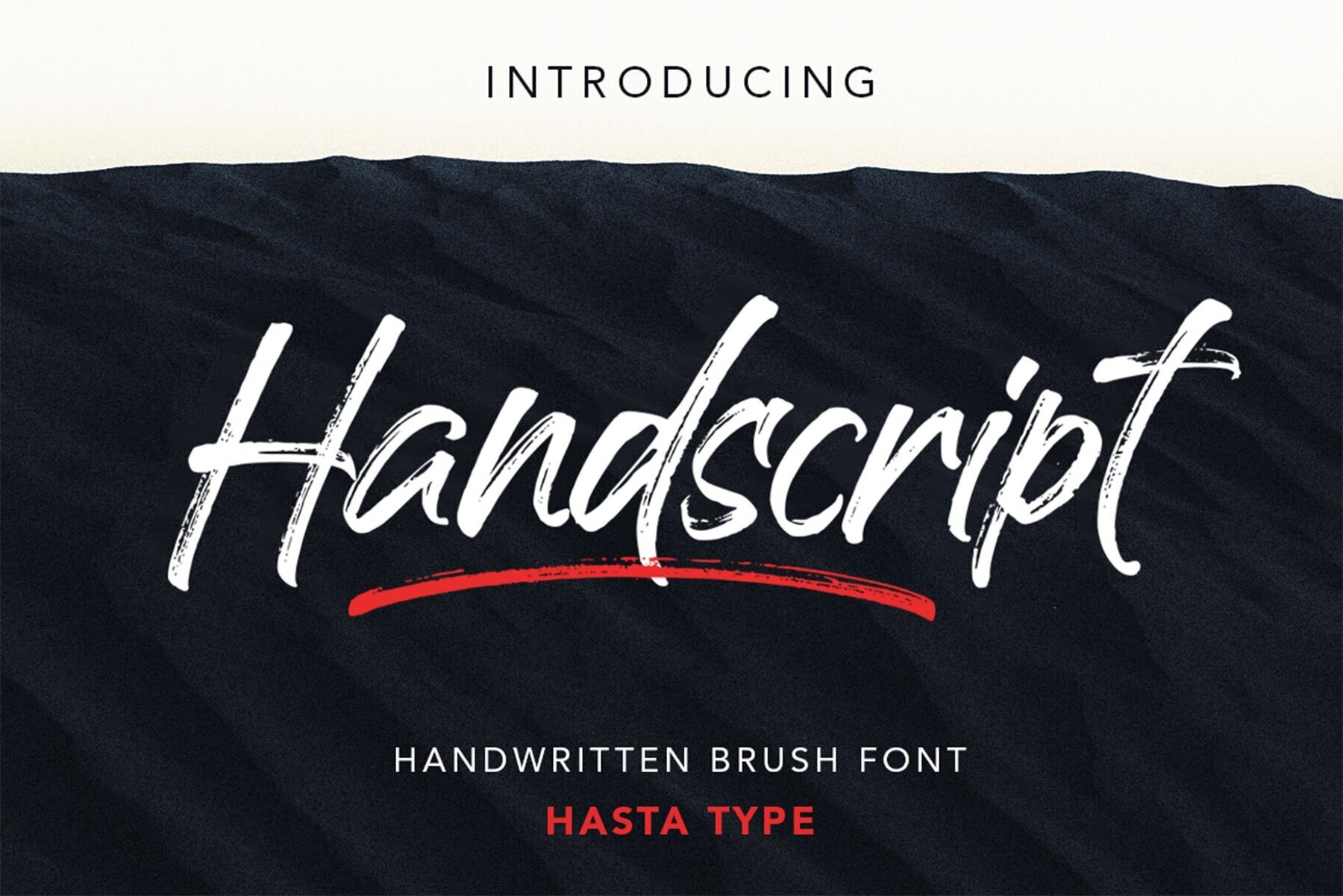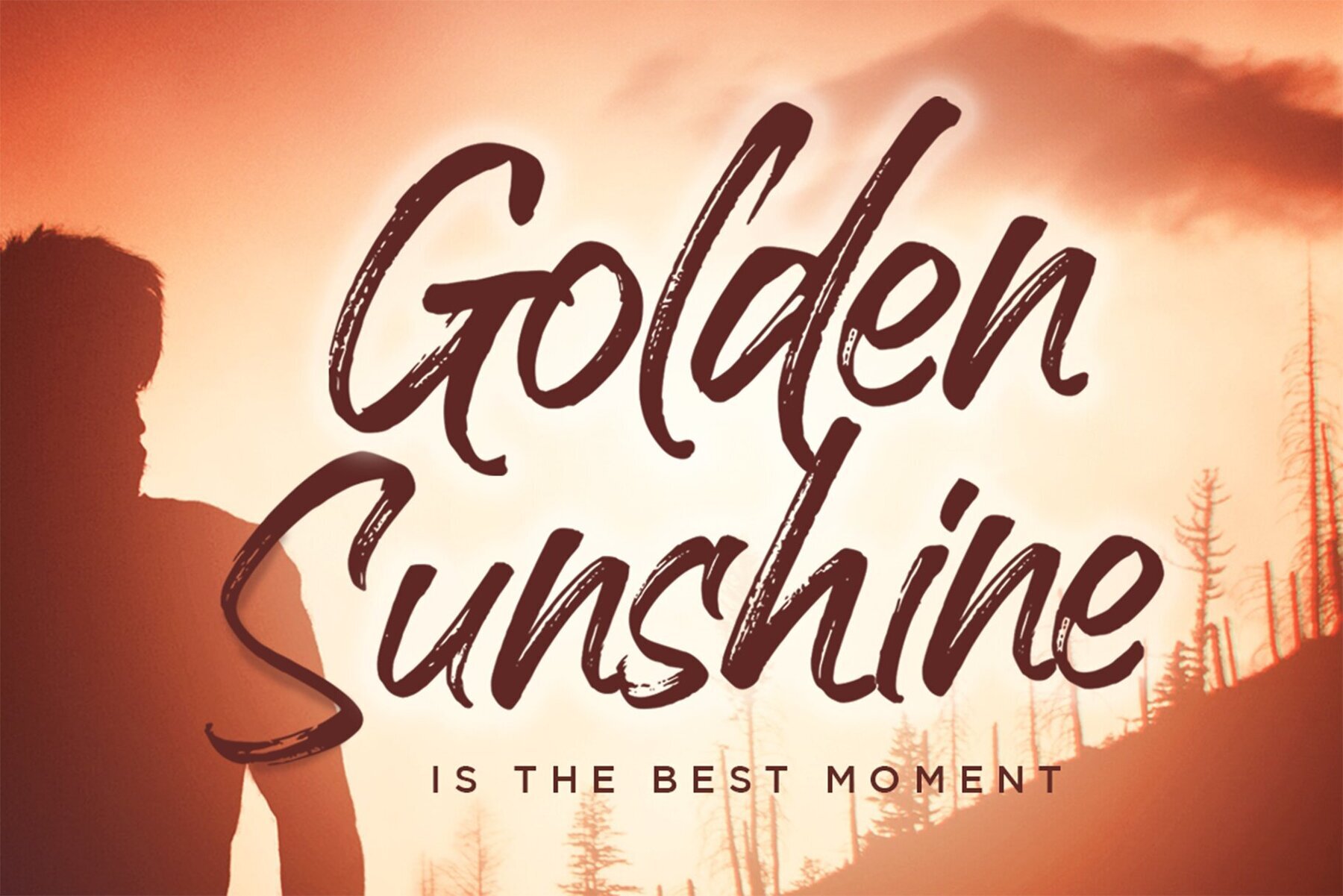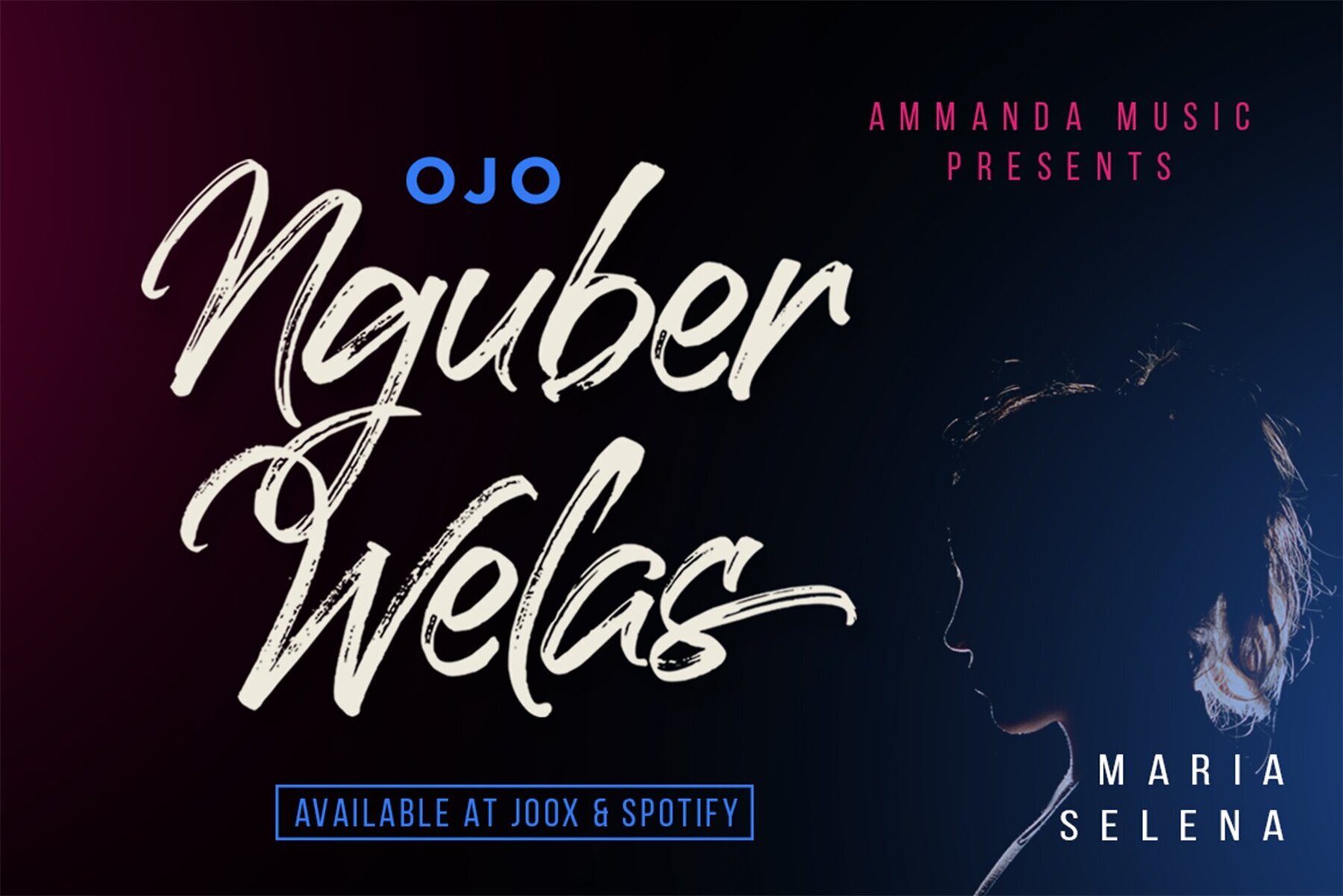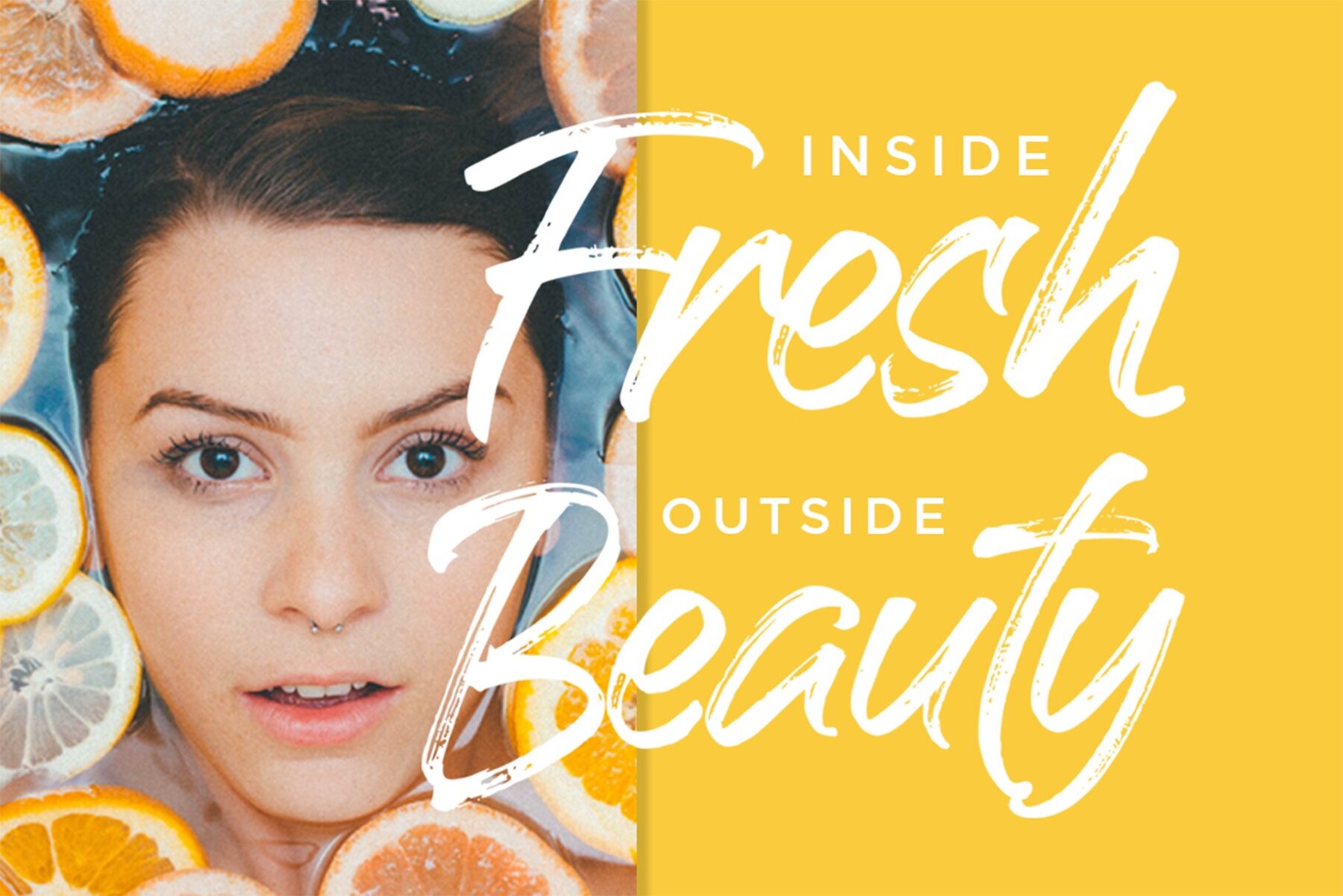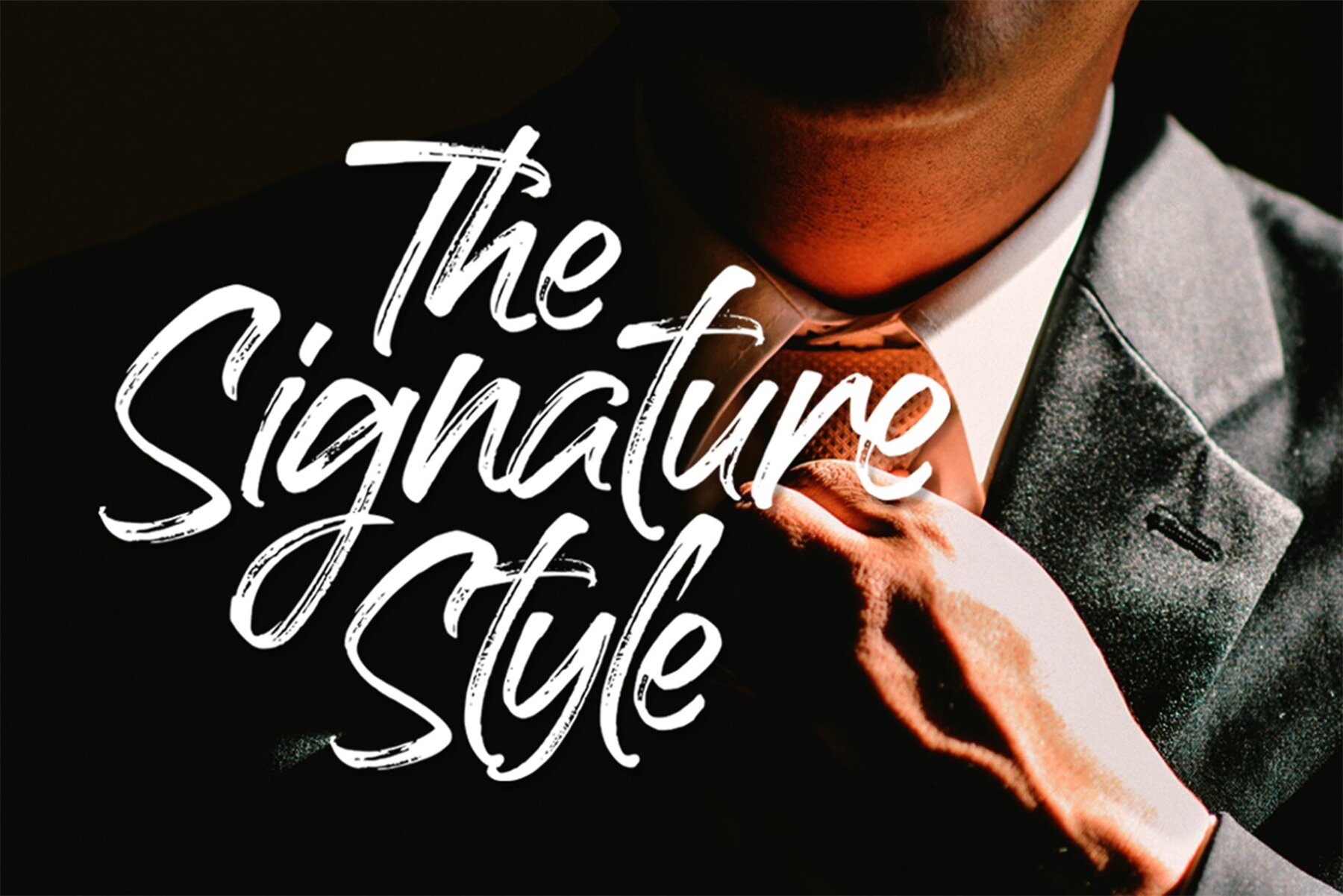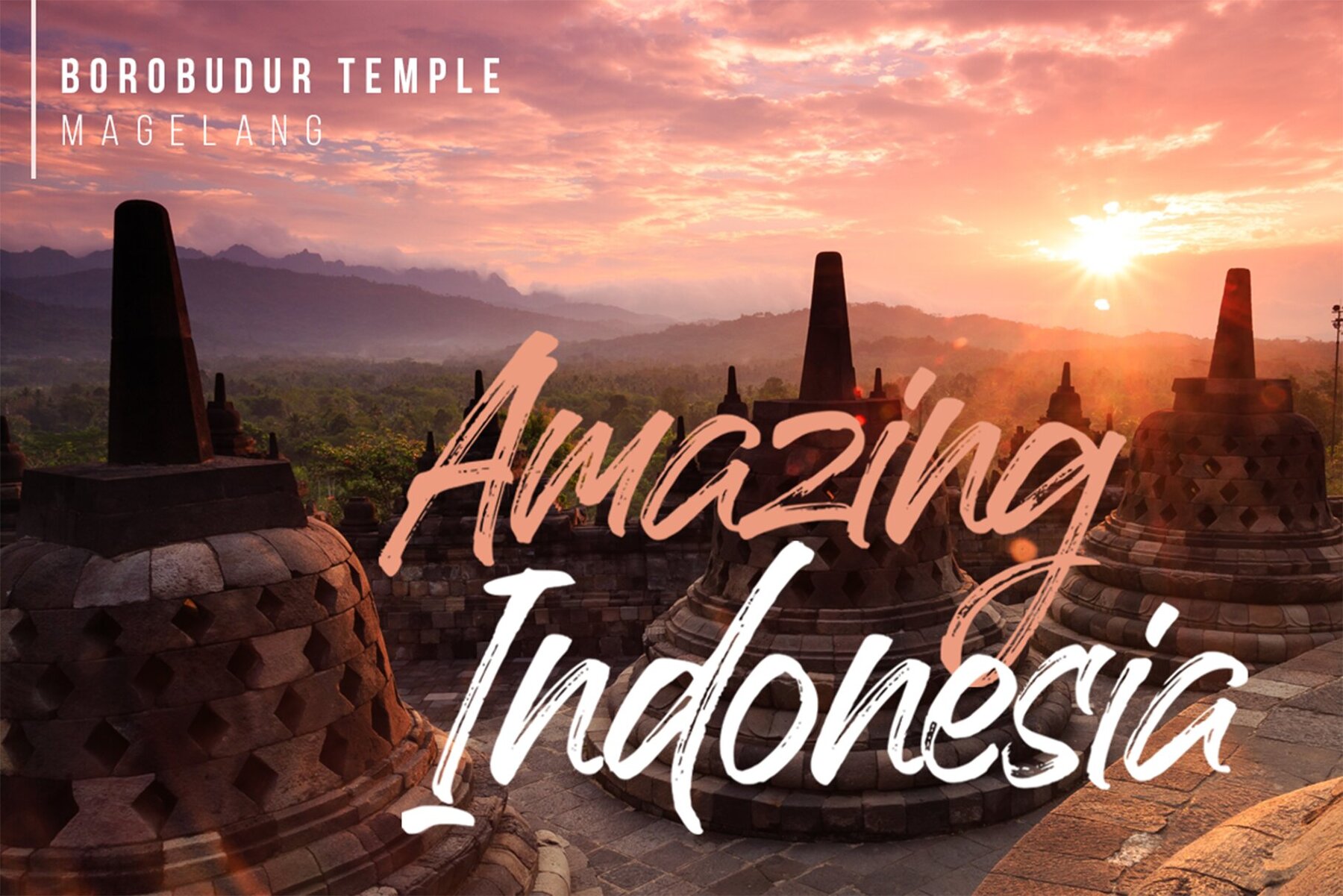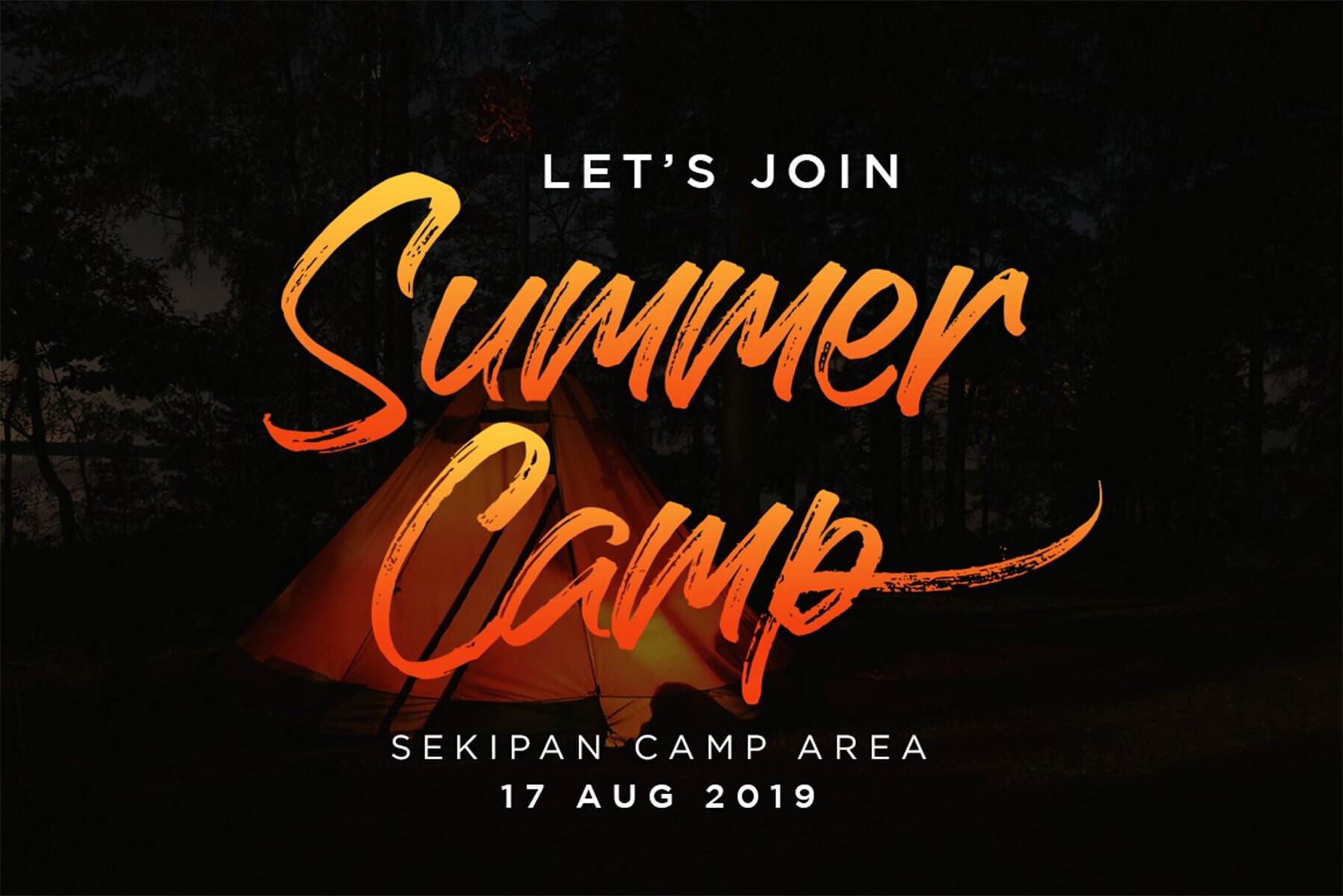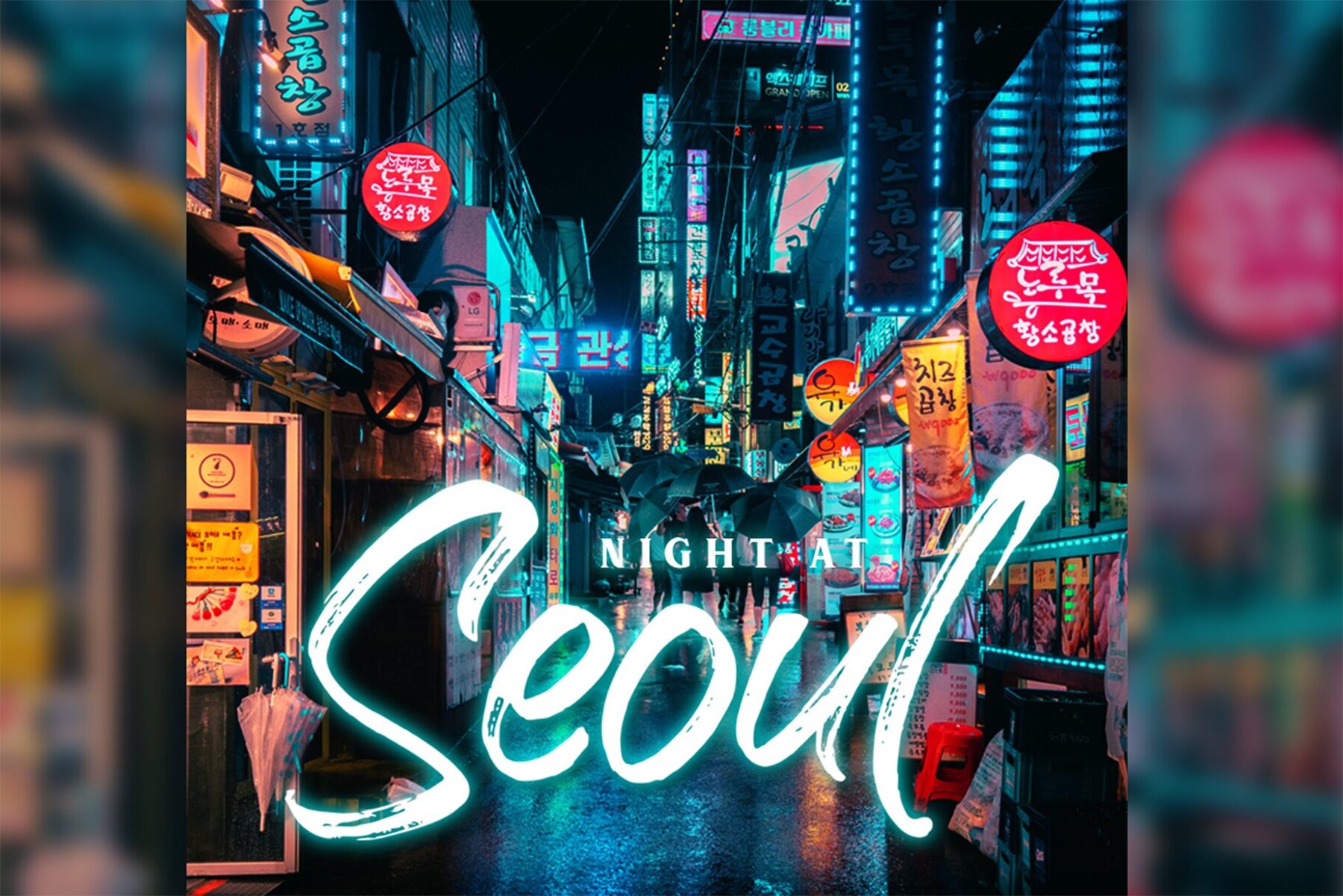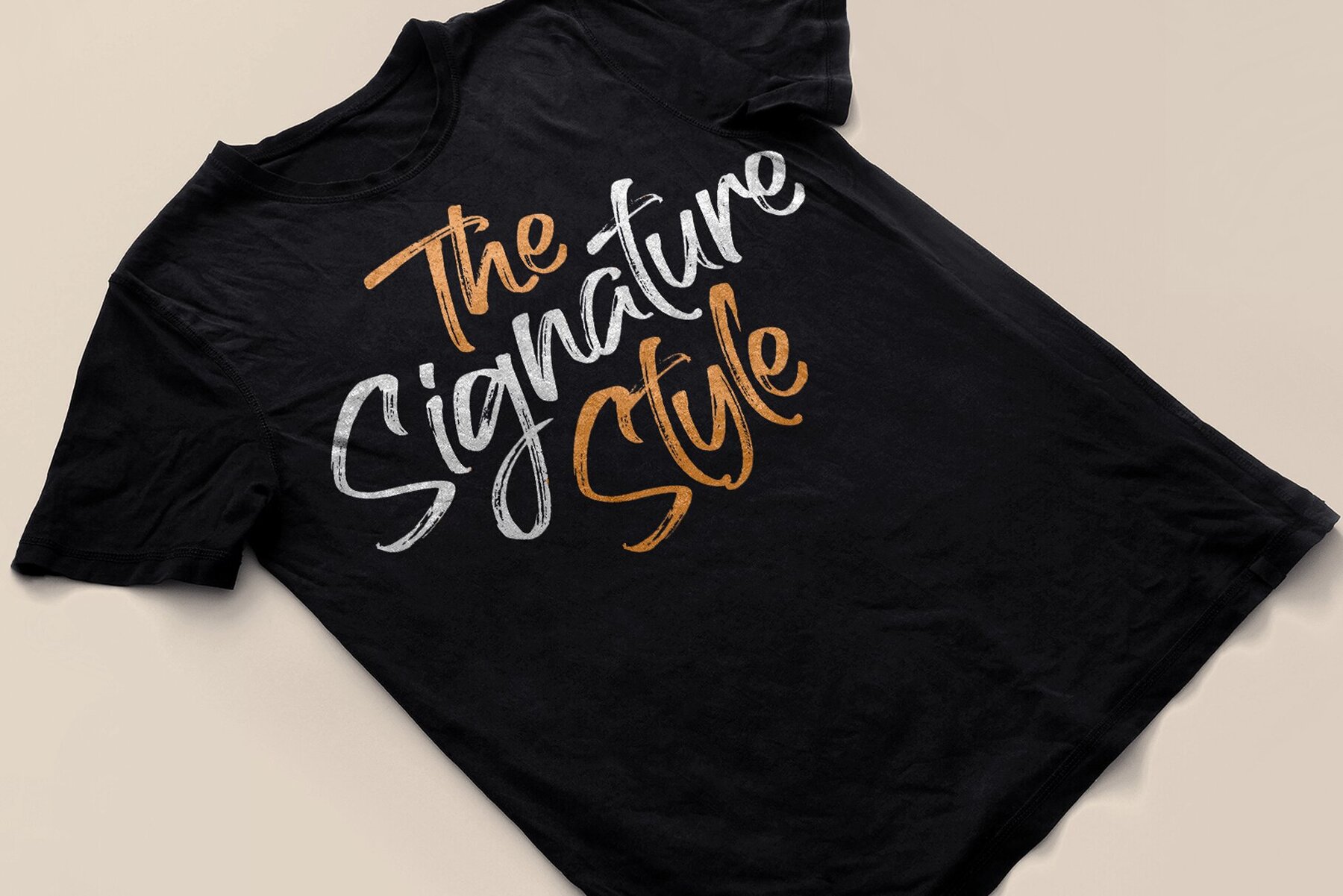
Handscript Font
Handscript
Handscrip is a bold, expressive font designed to infuse your designs with a dynamic and natural energy. Its rough textured strokes and authentic character make it a perfect choice for projects needing a personal, handcrafted touch. Whether you're working on branding, apparel, packaging, or travel content, Handscript delivers a standout signature style that captivates.Handscript: Bold Handwritten Brush Font